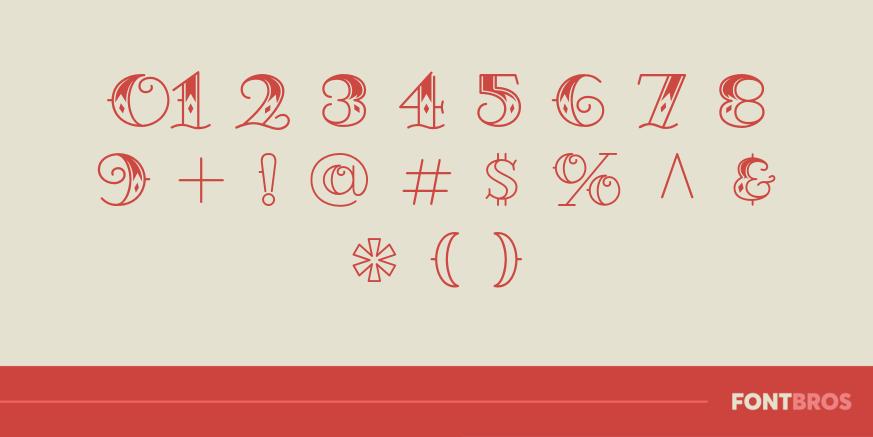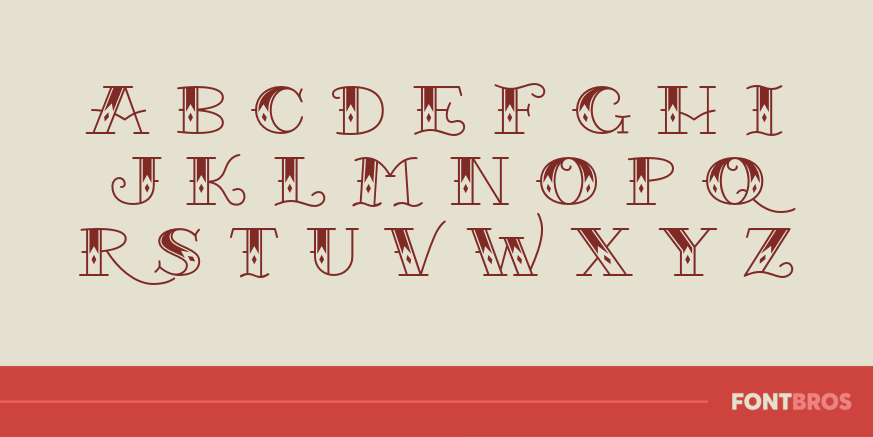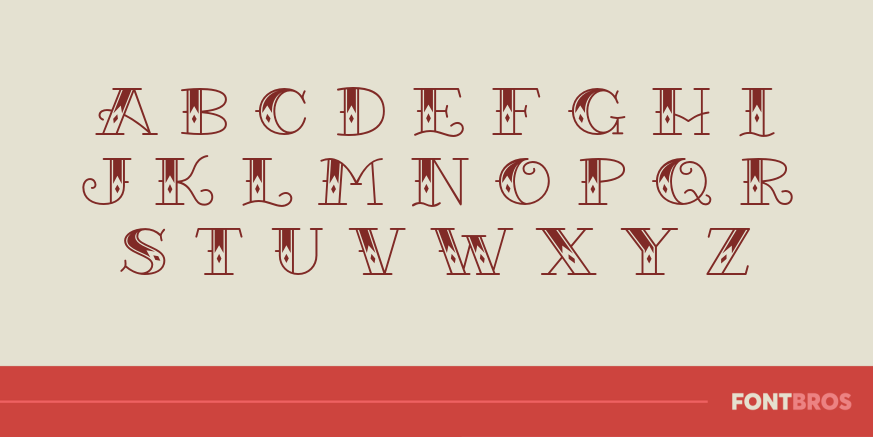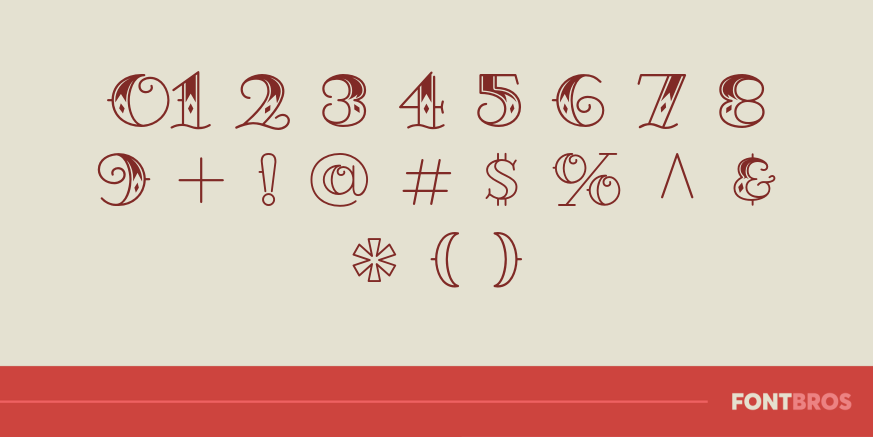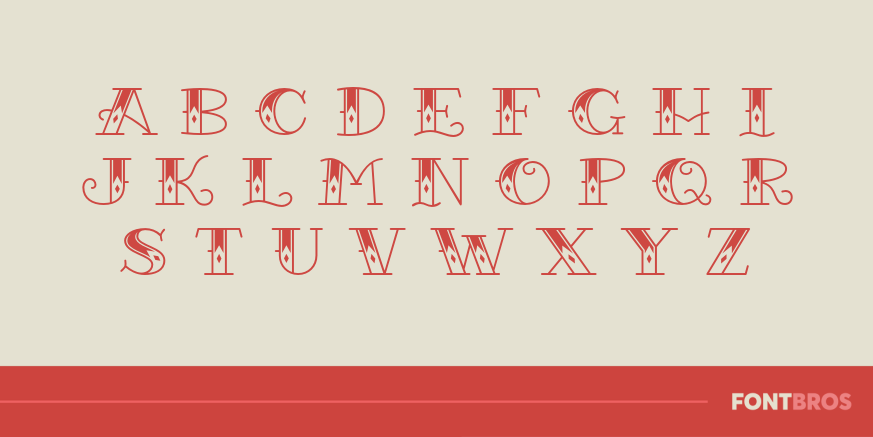
Queen Rosie
Font Family by Font Diner
She's ornate, she's well read and she's loaded with tatoos! Queen Rosie holds court for all the rockabilly hipsters!